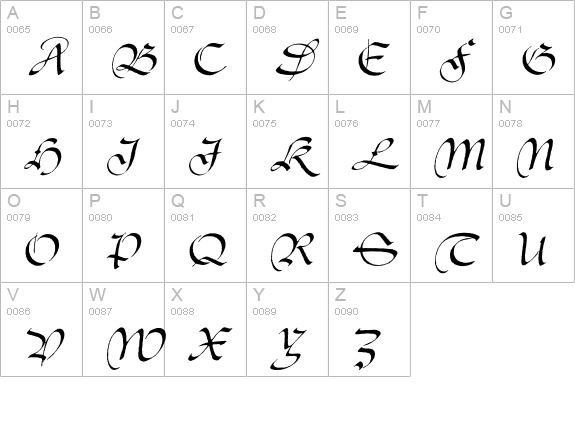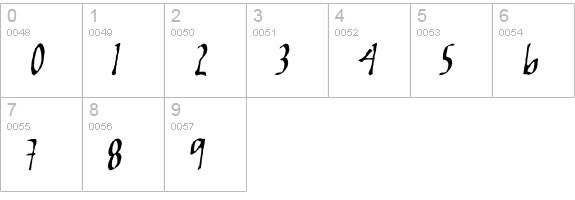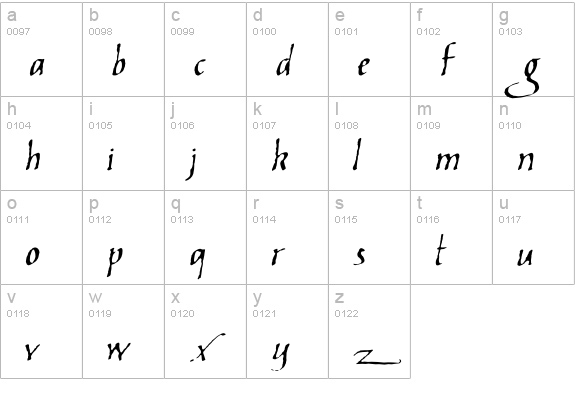
Liefendre Font Details
Introducing Liefendre font - a stunning display typeface that effortlessly combines elegance with modernity. The delicate curves and stylish flourishes of Liefendre make it perfect for adding a touch of sophistication to any design project. Whether you're creating invitations, branding materials, or social media graphics, this font is sure to make a lasting impression. What's even better is that Liefendre is available for free download at FontsMarket.com. Yes, you read that right - you can elevate your designs with this gorgeous font at no cost. So why wait? Download Liefendre today and let your creativity flourish with this exquisite typeface.